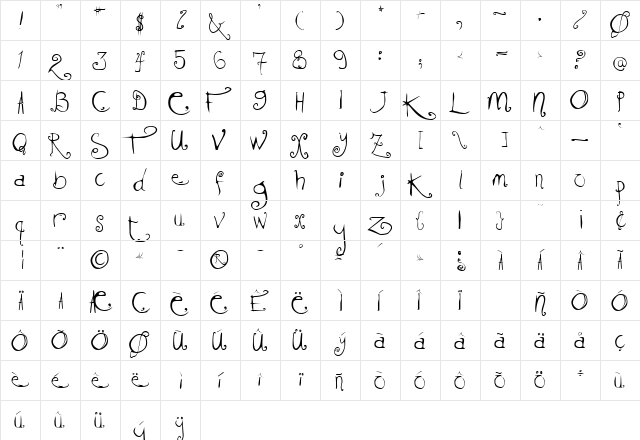
KissMeKissMeKissMe Regular
Design Context for KissMeKissMeKissMe Typeface
KissMeKissMeKissMe is a composed and adaptable typeface that performs quietly and consistently across a wide range of design contexts.